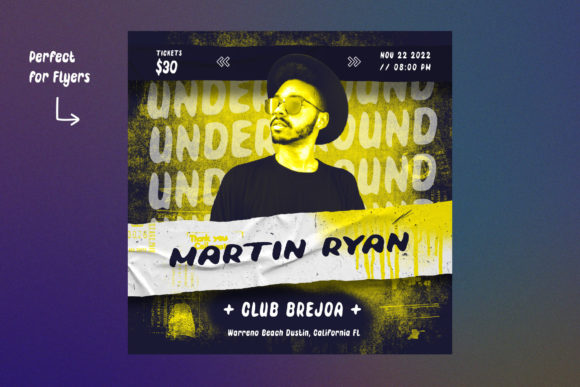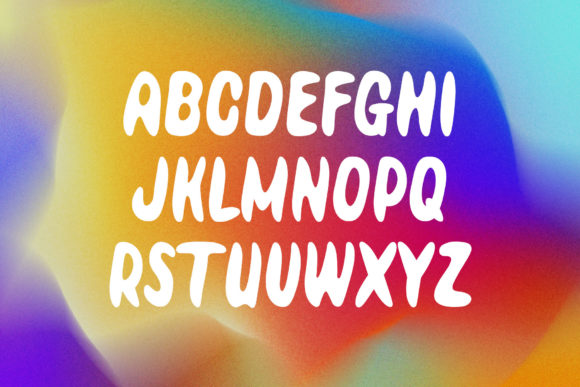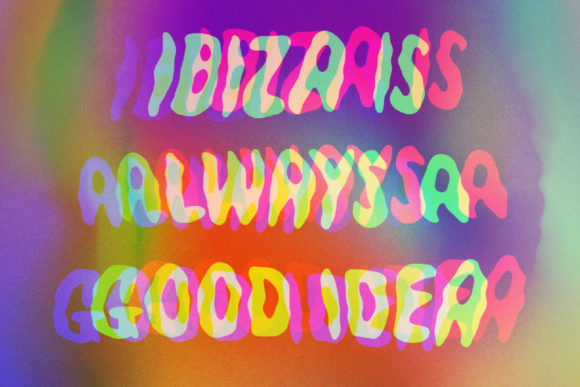
Introduction to Ibiza Font
Have you ever found yourself stuck in a design rut, searching for the perfect font to bring your creative project to life? You’re not alone. As designers, we’ve all been there – scrolling through endless font libraries, trying to find that elusive combination of style and versatility. But what if I told you there’s a font that can break free from that cycle and take your design to new heights? Meet the Ibiza Font, a stunning psychedelic hand-drawn display font that’s sure to captivate your audience and elevate your design game.
With its smooth rounded corners and effortlessly legible design, the Ibiza Font is a valuable resource for designers of all levels. Whether you’re working on a flyer, poster, or social media campaign, this high-quality font is the perfect companion for your creative journey. And the best part? It’s available for free download, complete with a transparent background that lets your design shine.
Ibiza Font
Honest Review: Ibiza Font
I recently stumbled upon the Ibiza Font, a stylish and modern design resource that caught my attention. As a designer, I’m always on the lookout for high-quality fonts that can elevate my creative project.
What works well with Ibiza Font is its versatility. It’s perfect for creating eye-catching headings, titles, and even body text. The font’s sleek and minimalist design makes it suitable for a wide range of design projects, from digital to print media. The free download option is also a major plus, making it accessible to designers of all levels.
- High-quality design with a modern aesthetic
- Perfect for creating eye-catching headings and titles
Overall, I’d highly recommend the Ibiza Font for designers looking for a high-quality, free design resource. Its modern design and versatility make it a great addition to any creative project. ✨
Ibiza Font is ideal for use in creative projects such as branding, packaging, and advertising. Its elegant style makes it perfect for use in high-end designs where sophistication is key.